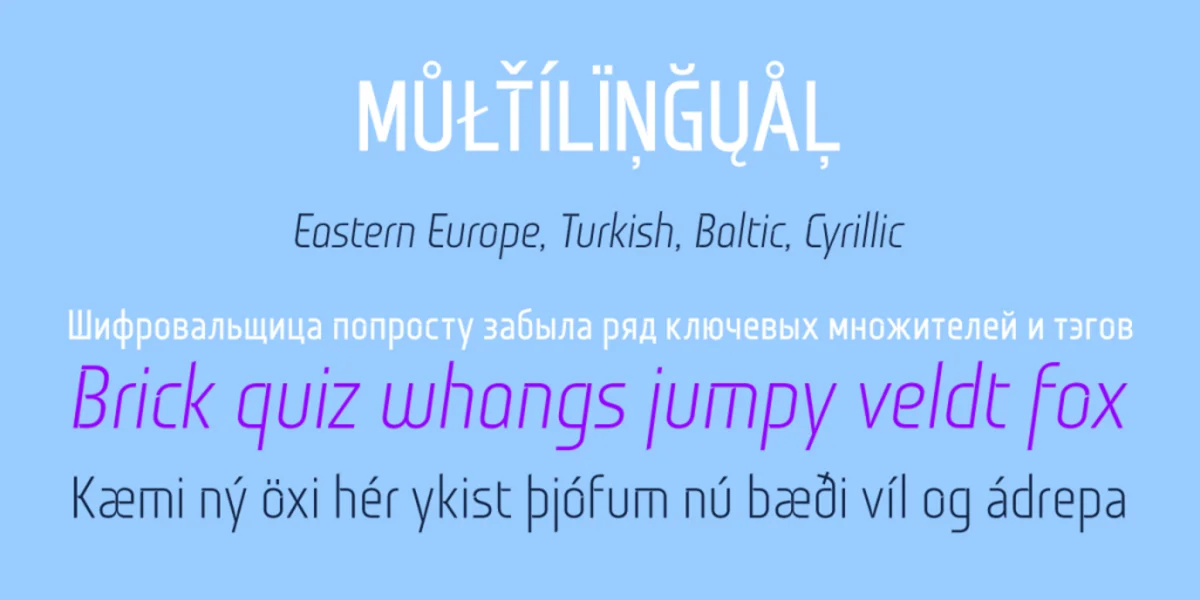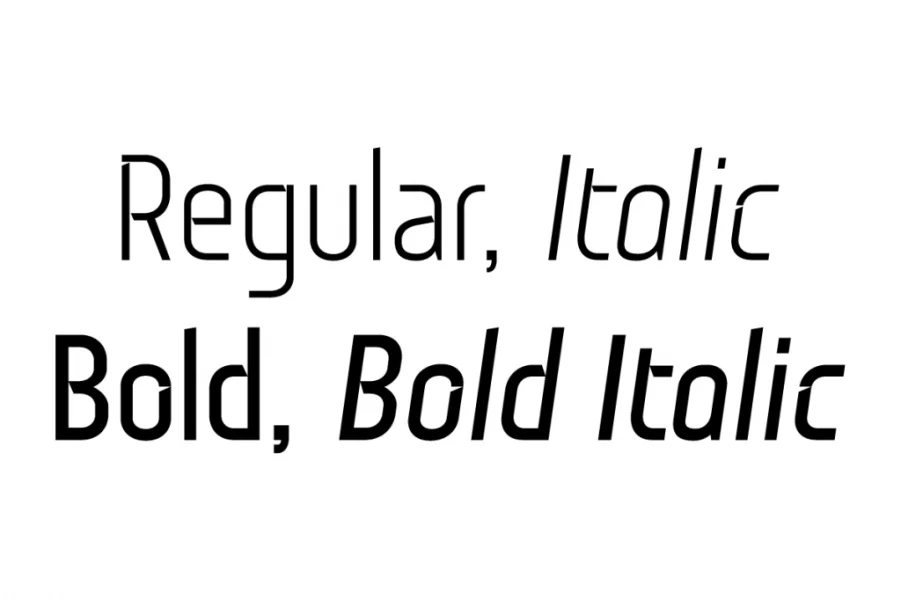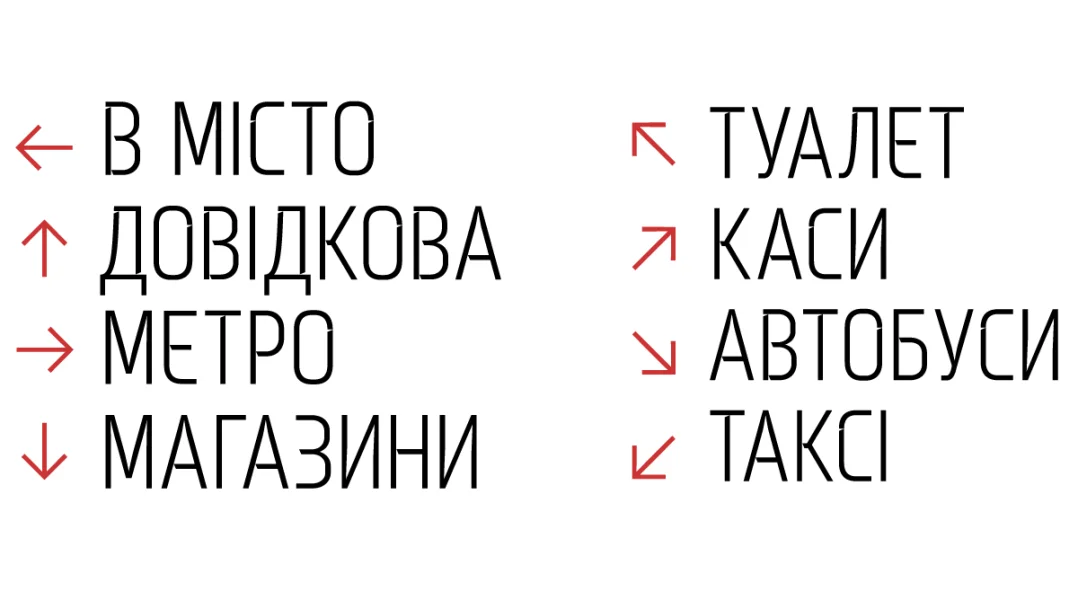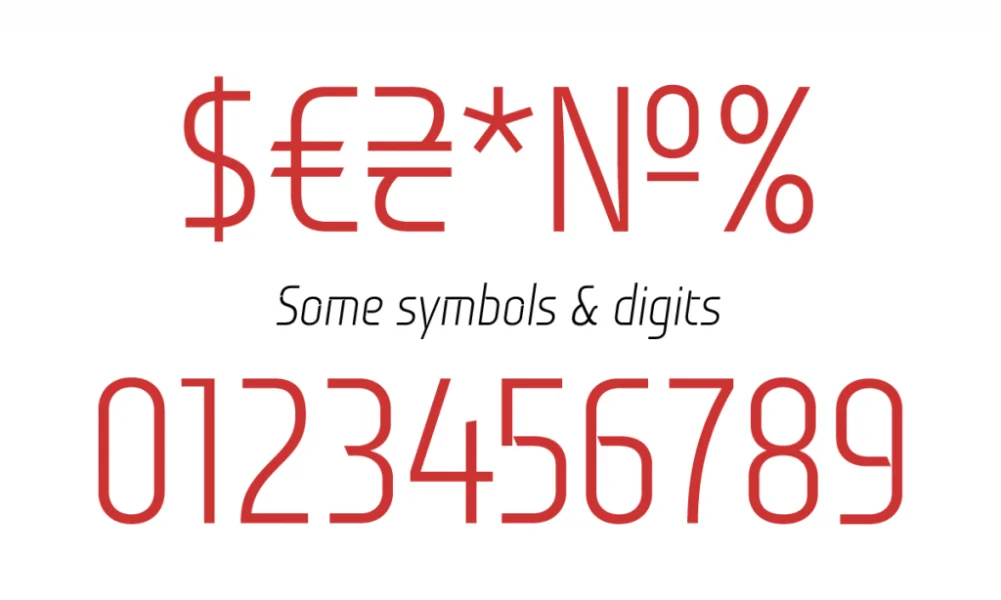
If «Back to the Future Part II» heroes in 1989 would need a new poster for to travel to 2015, sure they would need a futuristic font and use ours. It’s good not only for theatrical release posters. The best part is one does not needs a DeLorean time machine to give a different spin to a sheet of paper. Because «Roads? Where we’re going, we don’t need roads.» Most stencil typefaces are only usable for display or headlines only. Monitorica has a graceful design that is also very legible as a text face.